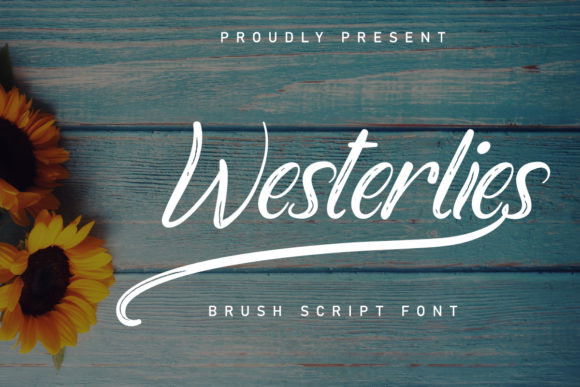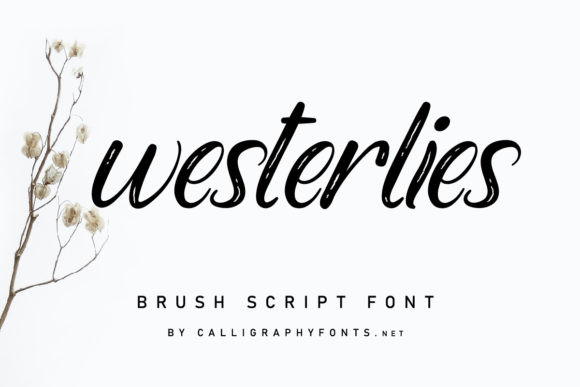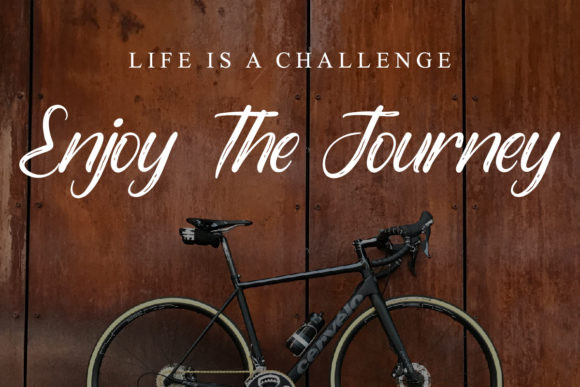
Westerlies Font
Westerlies FontWesterlies is a friendly script font with brush style letters. Use this font to bring your projects to the next level!